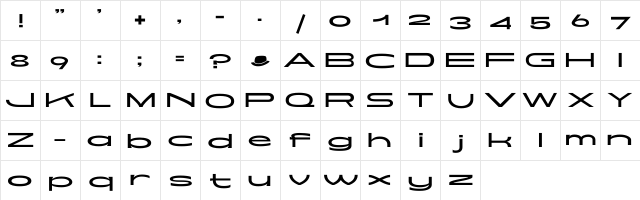
Oddjob Display
Design Context for Oddjob Typeface
Oddjob is built around its visual character rather than neutral utility — its distinctive forms are designed to make an impression at display sizes.
Font Pairing: Pair with a clean neutral sans-serif for body copy to let Oddjob's character lead without overwhelming the composition.
Pro Tip: Treat Oddjob as the centrepiece of your typographic hierarchy. One strong heading set in a decorative face can carry an entire layout.